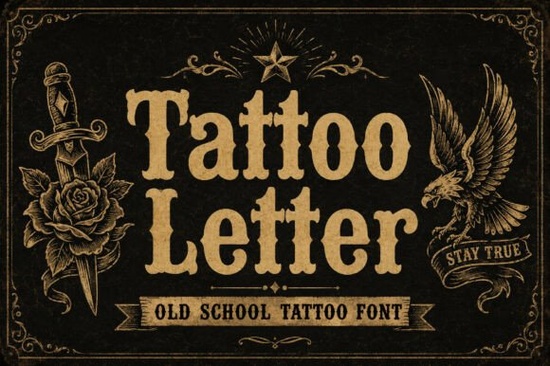
If you are looking to add some authentic, old-school grit to your next design project, the Tattoo Letter Font is a fantastic choice. This typeface captures the rebellious soul of traditional ink with heavy, ornamental letterforms and a weathered, hand-crafted texture. It is perfect for designers and crafters who want their work to stand out with vintage flash art vibes.
What makes this typeface stand out for vintage projects?
When you open the file, the first thing you will notice is the robust visual weight. The letterforms are built with classic western serifs and rhythmic dots that give it a highly decorative flair. Unlike clean, modern typefaces, this font features a distressed, hand-crafted texture that mimics the look of aged flash art. This means you do not have to spend hours adding grunge overlays in your design software to get that authentic, lived-in look. The texture is already baked into the glyphs, saving you time while keeping your files clean and easy to edit.
Where can I use this style in my business?
This font shines in applications that need a strong, masculine, or retro edge. It is an exceptional choice for streetwear branding, where you want your apparel to carry a legendary, underground personality. It also works beautifully for craft brewery labels, custom motorcycle graphics, and high-impact editorial headers.
Sometimes you need contrast in your designs. If you are putting together a music festival poster, a flowing dance style typeface offers a nice visual break from the heavy ink style. Even for lighter, seasonal projects, you can use it as a bold accent alongside a playful school summer style typeface for event flyers.
How do I get the best results when printing or pressing?
Because of the heavy visual weight and built-in distressing, this font performs best on darker backgrounds or textured materials. For print-on-demand sellers, it looks incredible on black or navy t-shirts using direct-to-garment printing. The weathered edges blend naturally with the fabric, making the design feel like a part of the shirt rather than a sticker sitting on top of it.
For sublimation on mugs or tumblers, the heavy weight ensures the design remains legible even when wrapped around a curved surface. The distressed edges also help hide any minor alignment issues during the pressing process.
If you are using it for physical crafts, like vinyl cutting, keep in mind that the intricate dots and serifs might require weeding patience. Pro tip: If you are cutting this on a Cricut or Silhouette, make sure to weld the letters and use a high-quality vinyl to prevent the small dots from tearing during the weeding process.
What should I check before finalizing my design?
Before you send your files to the printer or upload them to your shop, run through this quick checklist to ensure your design looks its best:
- Check the scale: The ornamental details can get lost if the font is too small. Use it for main headers rather than body text.
- Test the contrast: Ensure the weathered texture is visible against your background. Light text on a dark background usually works best.
- Mind the kerning: Because of the decorative serifs and dots, some letter combinations might need manual spacing adjustments to look perfectly balanced.
- Outline your text: If you are sending files to a professional printer, convert your text to outlines or curves to prevent any font substitution issues.
By keeping these practical steps in mind, you can confidently use this bold typeface to give your brand an unforgettable and legendary personality.